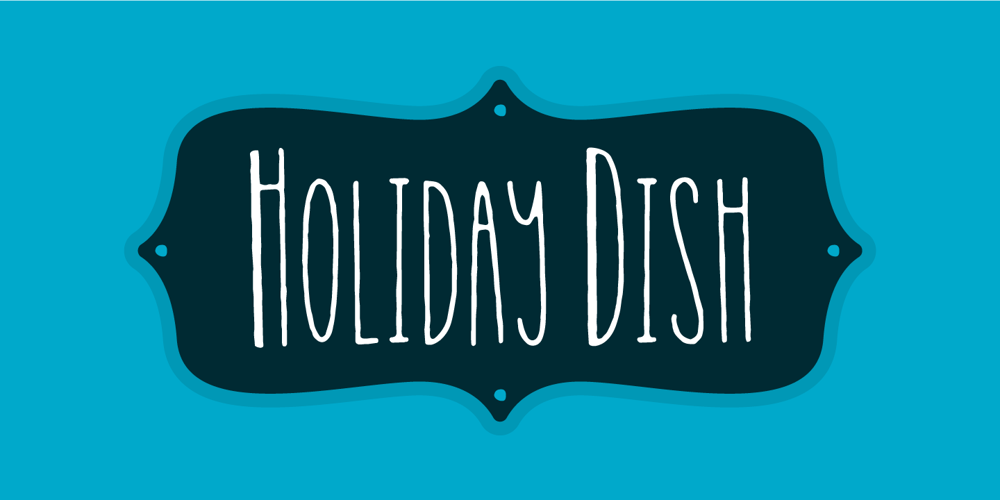
Holiday Dish
Holiday Dish font
Holiday Dish Font Family was designed by Jakob Fischer and published by PizzaDude.dk. Holiday Dish contains 4 styles and family package options. Holiday Dish has a simple and stylish art deco look. Freshen up your design using Holiday Dish, and you are guaranteed to get the eye-catching look your design deserves. Comes in both Regular and Bold.